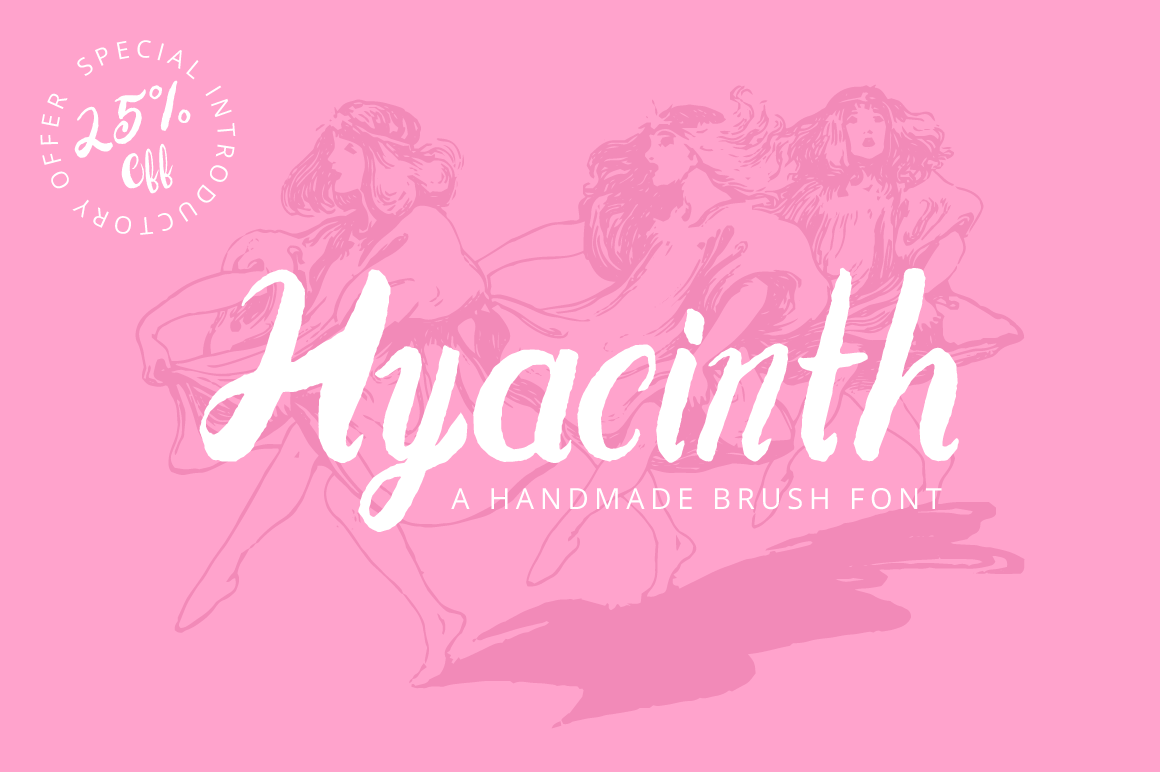
Hyacinth is a handmade brush font, made with tender love and care. Each character was carefully hand drawn dozens of times and then the best one selected for the final draft. The characters were then scanned, vectorized, and imported into the font creation software. Then to top it off kerning pairs were set up for every character combo in the font.